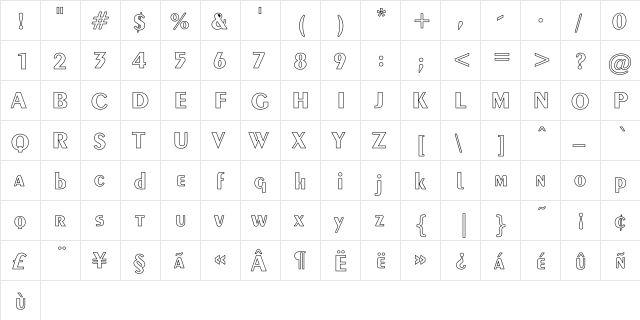
Exotic-Bold Hollow Regular
Exotic-Bold Hollow is a composed and adaptable typeface that performs quietly and consistently across a wide range of design contexts. Its bold stroke weight gives it real presence on the page.